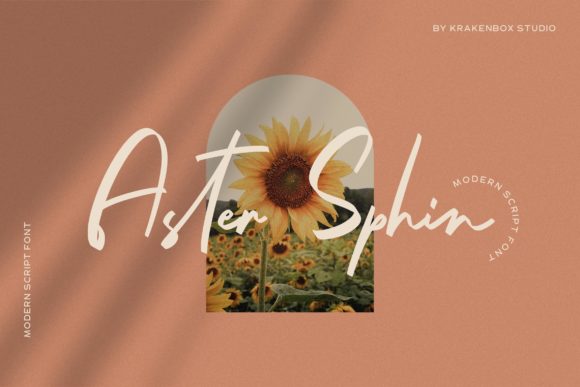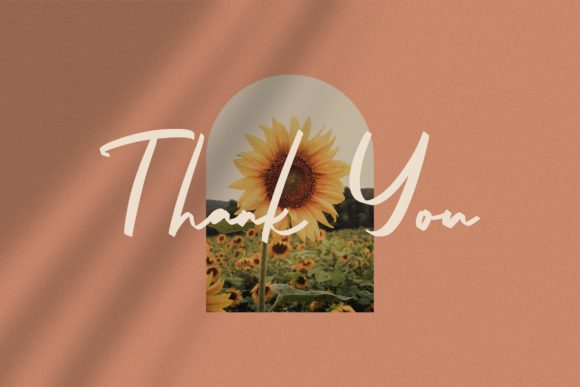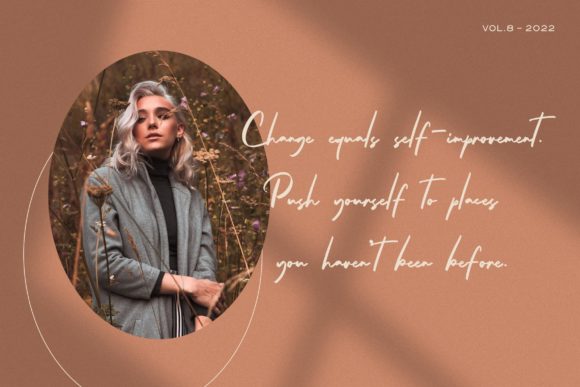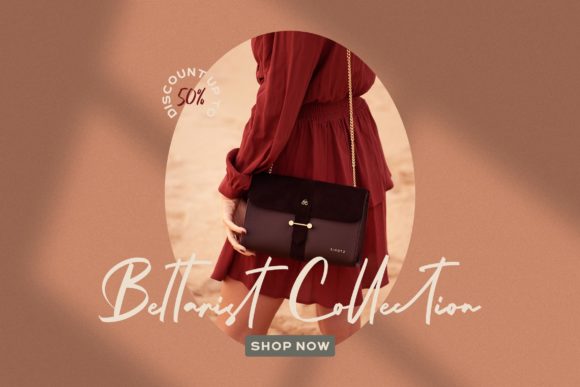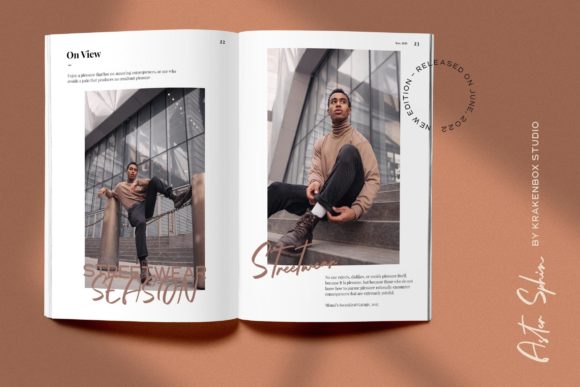
About Aster Sphin Font
“Aster Sphin” emerges as a fashion-forward and sophisticated signature-style script font, graced with its own distinct curves and an elegant, inky flow. This font captures an essence of timeless elegance, exuding a sense of class and modernity that enhances a wide array of design projects.
Picture “Aster Sphin” as a brush that glides effortlessly across the canvas, leaving behind letters that intertwine with graceful curves and an enchanting ink-like fluidity. Its refined, classy, and modern appearance elevates your projects, transforming them into visual delights that radiate with charm and individuality. As you weave this font into your creations, you embark on a journey where your concepts evolve into captivating visual narratives.
Beyond its visual allure, “Aster Sphin” encapsulates an essence of authenticity and creative expression. Its signature-style script adds a personal touch, turning your designs into more than just visuals – they become expressions of artistry and refined elegance.
“Add “Aster Sphin” to your creative toolkit as a versatile companion. Its adaptability ensures seamless harmony with various styles, themes, and intentions. Whether you’re adorning wedding invitations with an aura of elegance, infusing thank you cards with a touch of sophistication, or bestowing a customized charm upon logos, business cards, and quotes, this font amplifies the resonance of your message.
In a design landscape where aesthetics convey both style and emotional resonance, “Aster Sphin” becomes your tool for crafting designs that evoke feelings and leave a lasting impression. Allow its unique curves and elegant flow to be the artistic strokes that enhance your creations, infusing them with a sense of fashionable sophistication. Embrace the allure of “Aster Sphin” and witness as it transforms your projects into captivating showcases of artistic excellence, resonating deeply with all who engage with them.